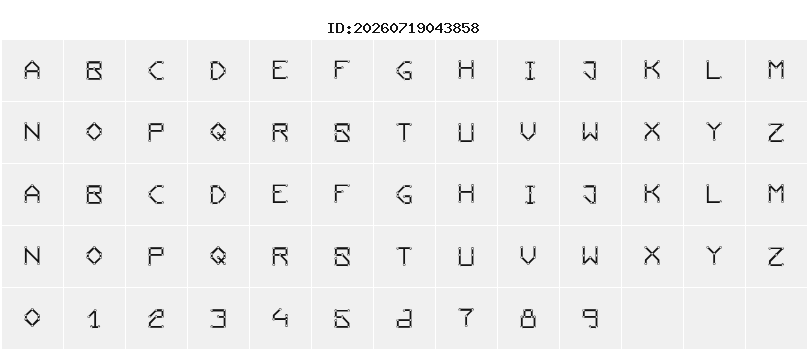
• Font Name: ConductingPaths
• Full Font Name: ConductingPaths
About ConductingPaths.otf
ConductingPaths.otf is a modern, elegant sans-serif font designed for ultimate readability and visual harmony. Perfect for branding, headlines, web design, and print materials.